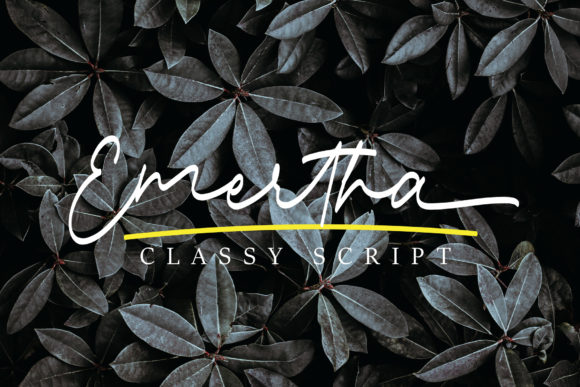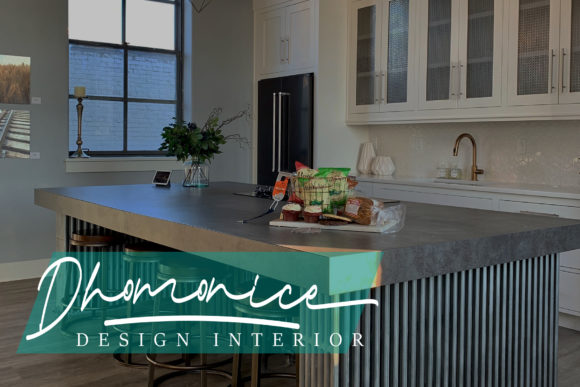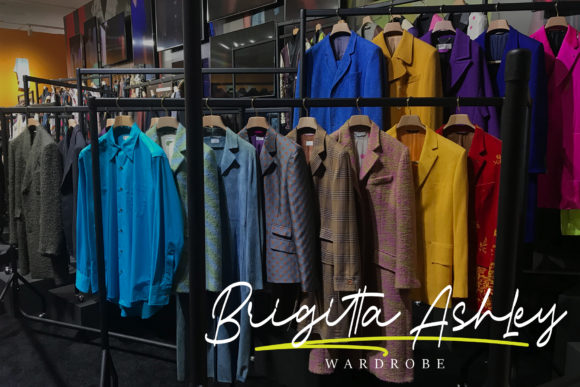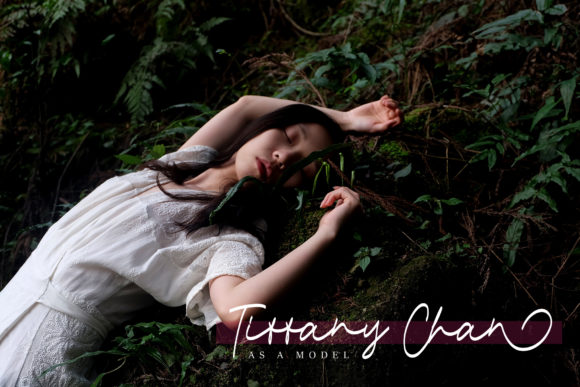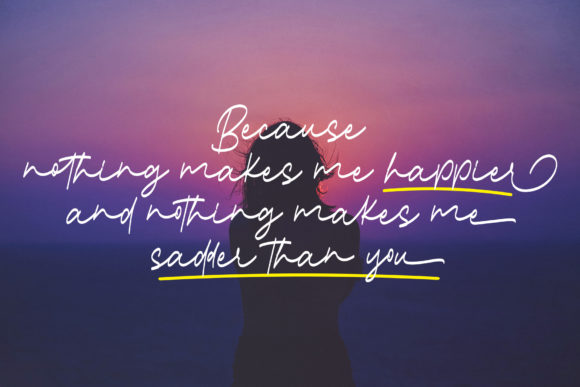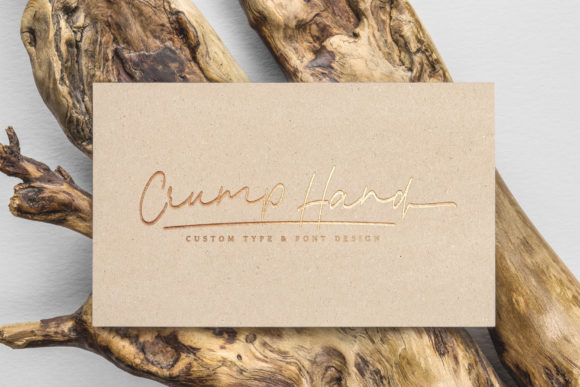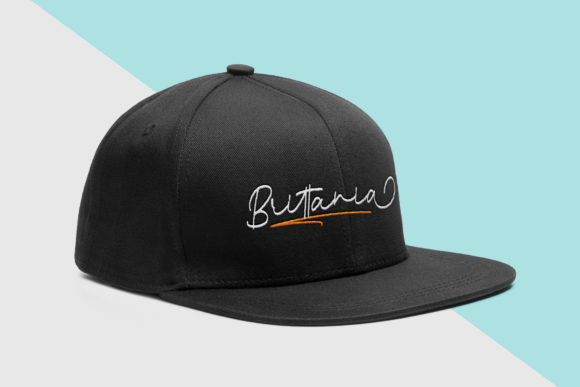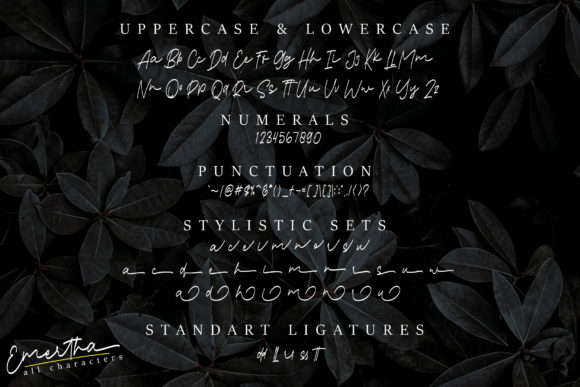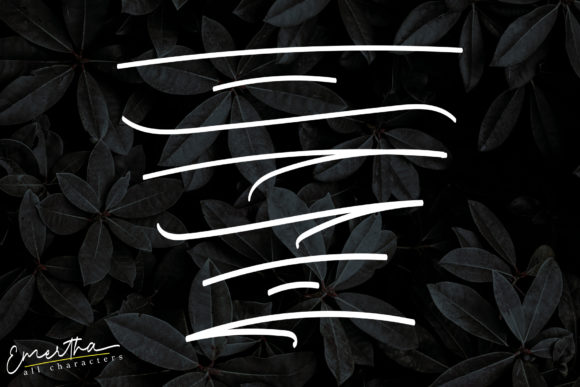
HomeScript FontsEmertha Script Font Script Fonts Emertha Script Font FacebookXPinterestWhatsApp Emertha Script Font Poster 2 Emertha Script Font Poster 3 Emertha Script Font Poster 4 Emertha Script Font Poster 5 Emertha Script Font Poster 6 Emertha Script Font Poster 7 Emertha Script Font Poster 8 Emertha Script Font Poster 9 About Emertha Script Font Emertha is a light and fun handwritten font with a cool twist. Get inspired by its contemporary elegance. DOWNLOAD ON CREATIVE FABRICAThis font is sold and delivered by Creative Fabrica. Font Canyon may earn a commission if you buy through this link. People also explored La Vista Font Yusniar Script Font Alexia Font Short Autumn Font Nursery Font Thillik Font House Signature Font Madibang Font Jocelyn Sadnight Font 353 0 TagsEmertha Script Font Previous articleStoner FontNext articleWhite Lotus Font LEAVE A REPLY Cancel reply Comment: Please enter your comment! Name:* Please enter your name here Email:* You have entered an incorrect email address! Please enter your email address here Website: Save my name, email, and website in this browser for the next time I comment. Personal Use Free Romantic February Personal Use Free Read more about this font Cloudy Night Personal Use Free Read more about this font BD TinyFont Personal Use Free Read more about this font Puisi Adinda Personal Use Free Read more about this font BLOG Free vs Paid Fonts: Why Investing in Premium Fonts Is Worth It Free vs Paid Fonts: Why Premium Fonts Are Worth It in 2025 The debate of free vs paid fonts continues in the design world. While... Transform Your Website: Elevate Your Typography with 7 Best Web Font Generators Top 10 Handwritten Fonts That Elevate Your Designs Fonts That Capture the Spirit of New York City